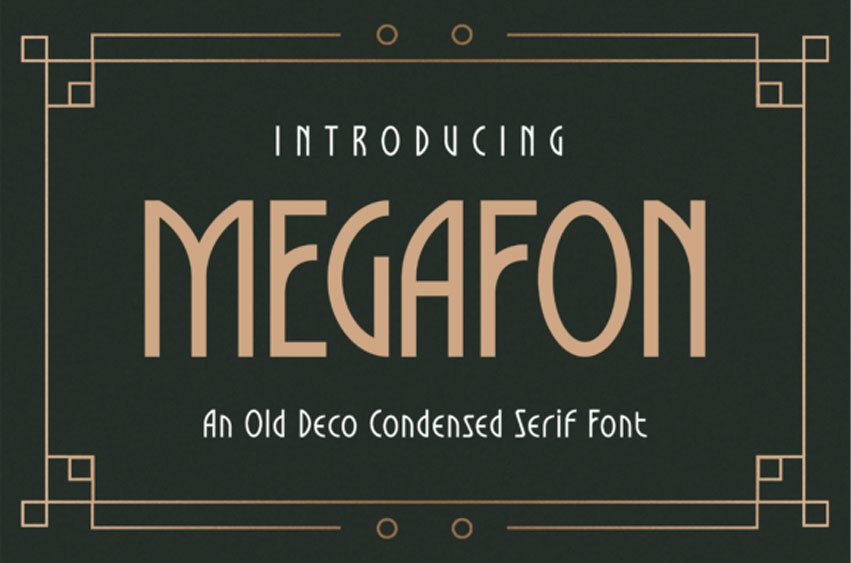
Megafon Font is an old deco condensed serif font inspired by vintage Art Deco typography and elegant geometric lettering styles. Designed with tall proportions, clean curves, and decorative details, this typeface creates a refined retro appearance suitable for branding and editorial compositions.
The font includes ligatures and stylistic alternates that help create more expressive and classic typography layouts. Its condensed structure makes it effective for posters, logo design, packaging, signage, menus, invitations, and vintage-themed visual projects.
Megafon works especially well for hospitality branding, wine labels, fashion editorials, cocktail bars, event posters, and decorative headline applications that require a stylish vintage atmosphere.